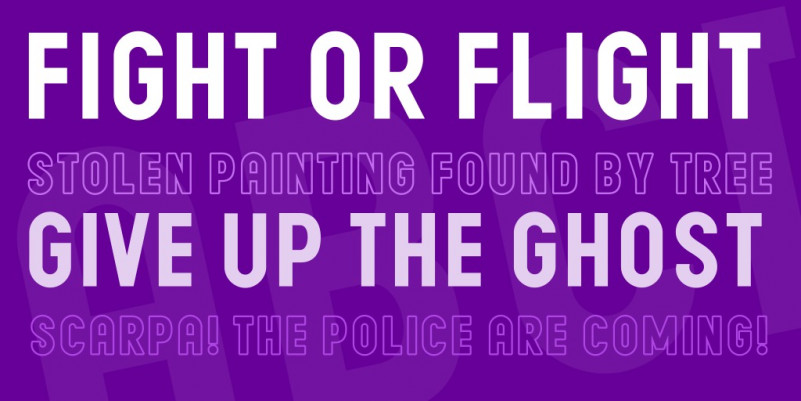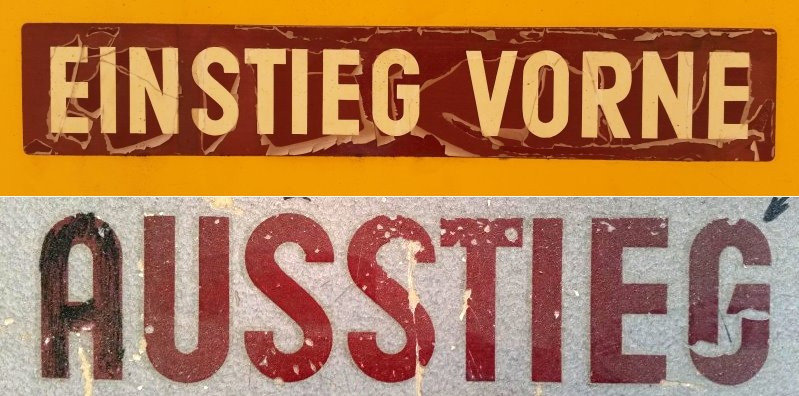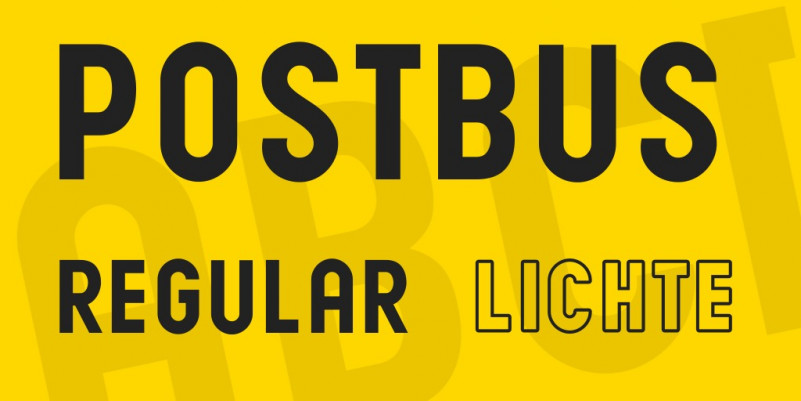
PostBus Font
PostBus Sans Serif Font. In mid-2017, I once again received a request for writing for a vehicle renovation project. This time it was a person who was in the process of making an old Austrian post bus roadworthy again. Of course, the addresses should also be restored as true to the original as possible. So first I drew the letters needed for the renovation of the vehicle. and it also reminds me of the typical Tatüüü-Tataaa: “The post is here” which resounded far and wide through the Tyrolean Alpine valleys at the time.
Later, however, I expanded the uppercase font further, i.e. a complete set of Latin characters, then also Cyrillic and Greek, as well as some OpenType functions were added.
These OpenType functions, such as automatic breaks (selectable in 2 ways, on the one hand via the standard function “frac” for OT professionals, but also via a switch ## that works in OT-enabled programs without selecting the OT function: ##1/5 equals the fraction with superscript and subscript digits, as well as many ligatures and as a bonus an arrow function <—< results in an arrow pointing to the left, which can be written as long as you like using multiple hyphens the instructions for the font in the download!